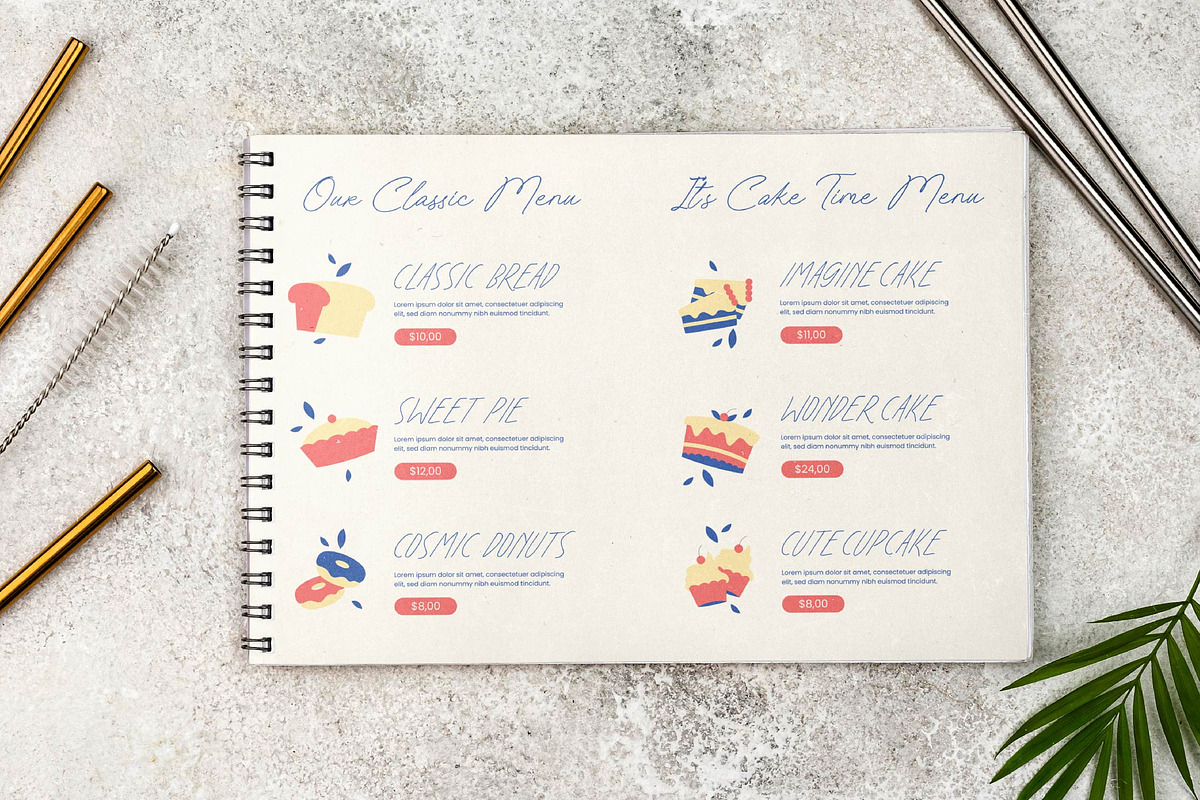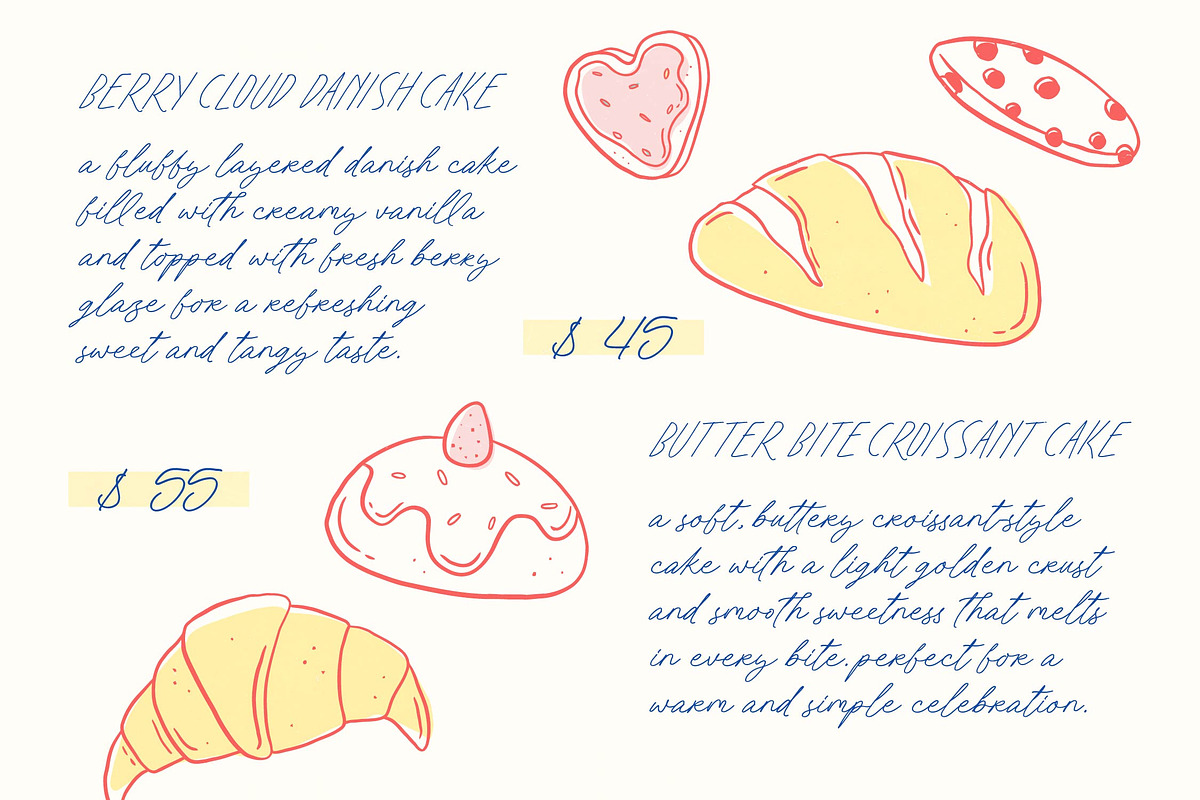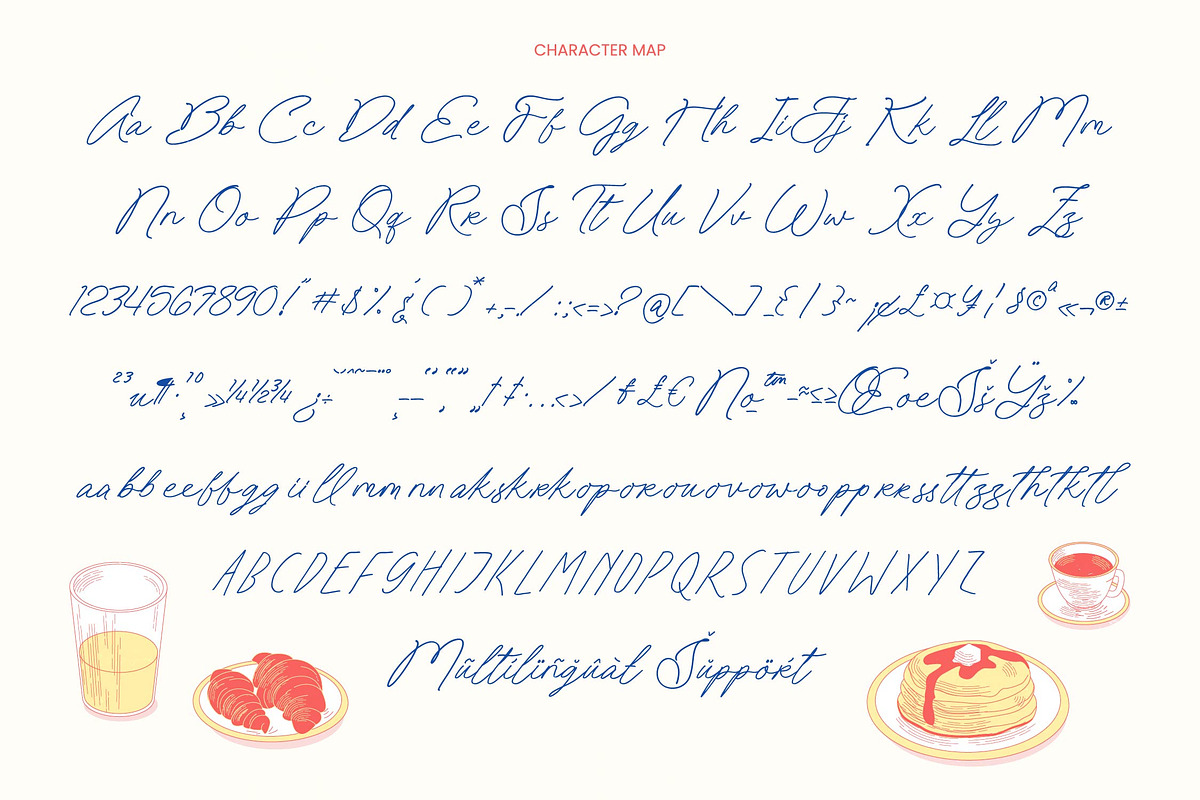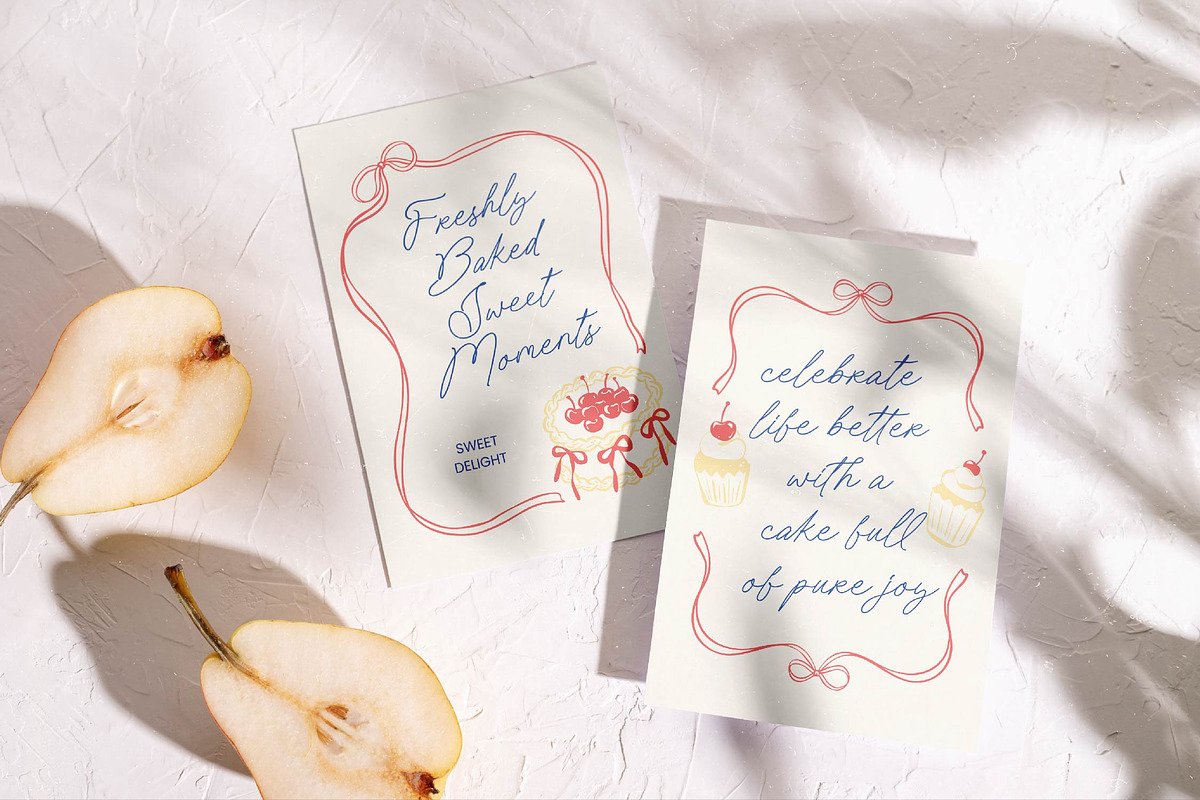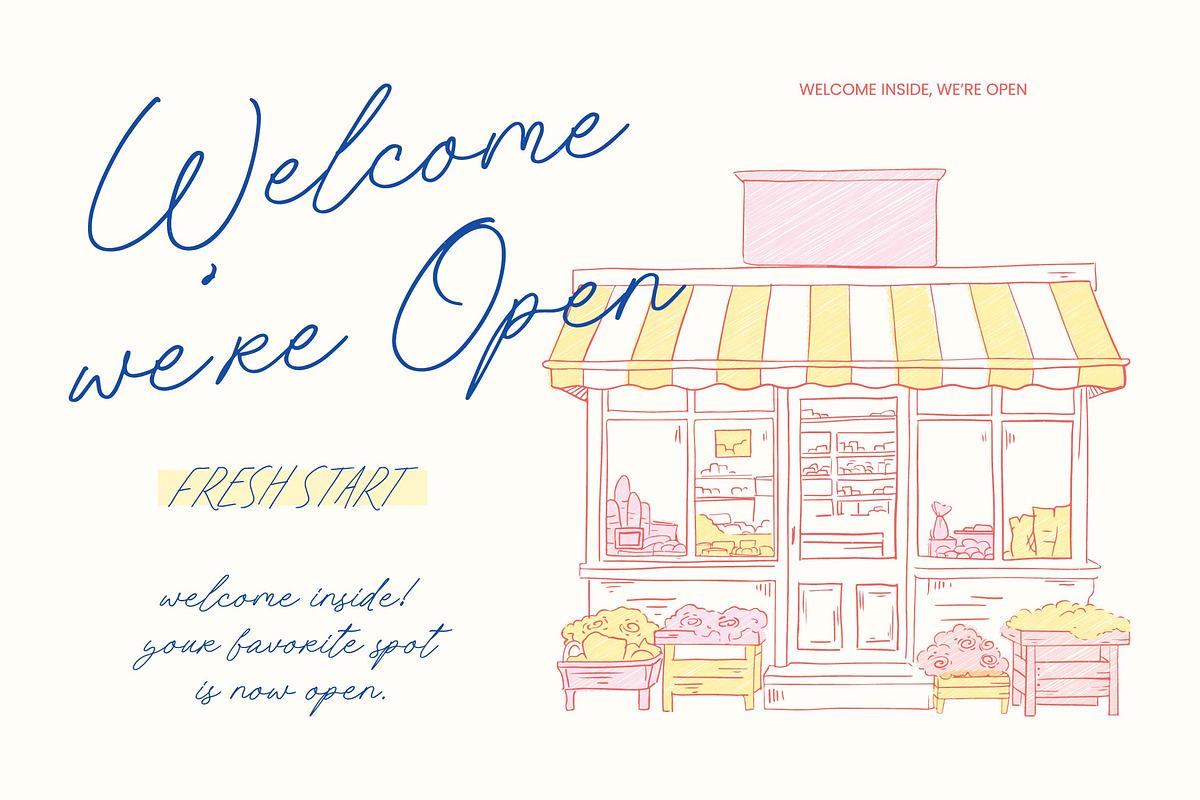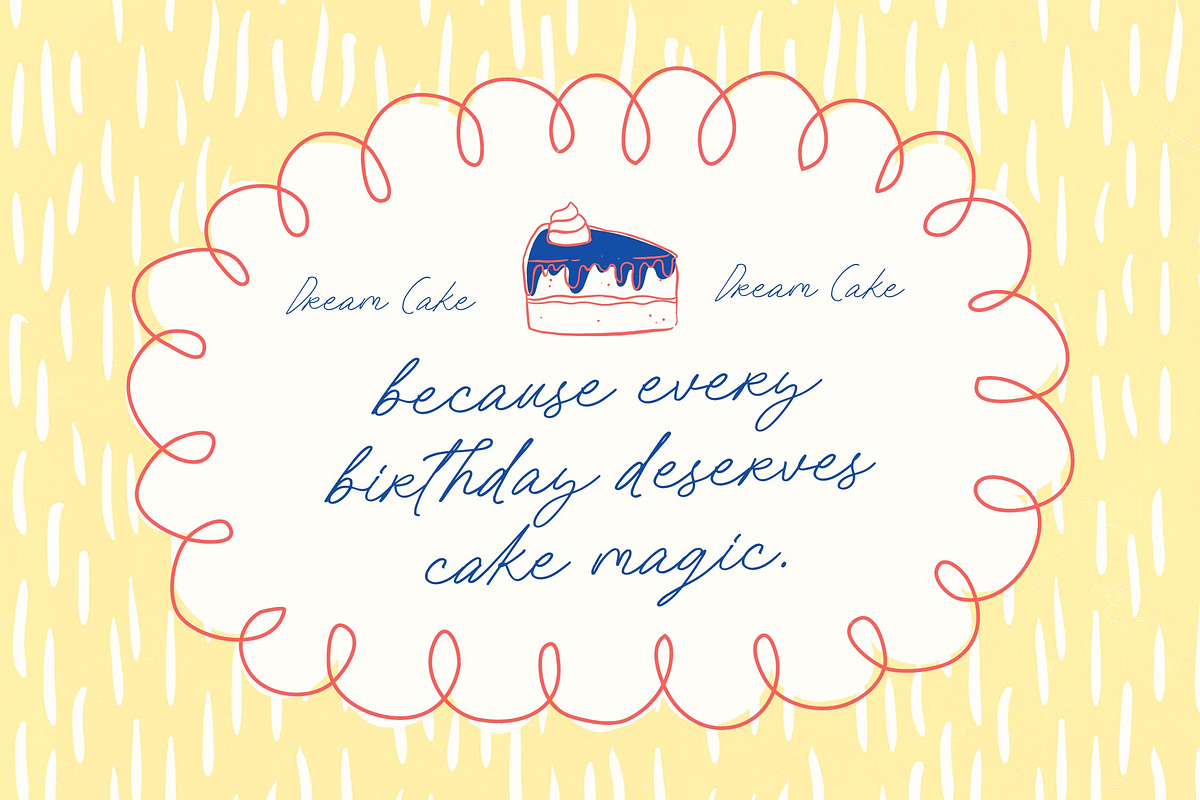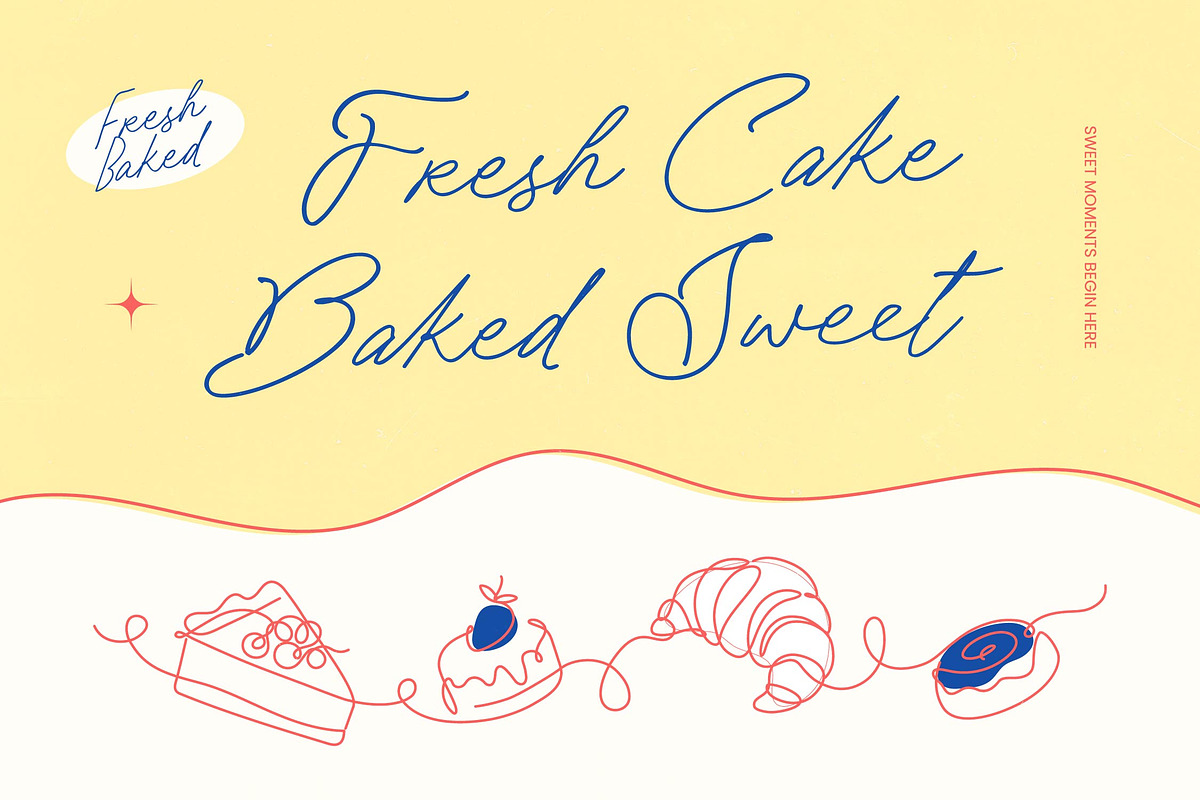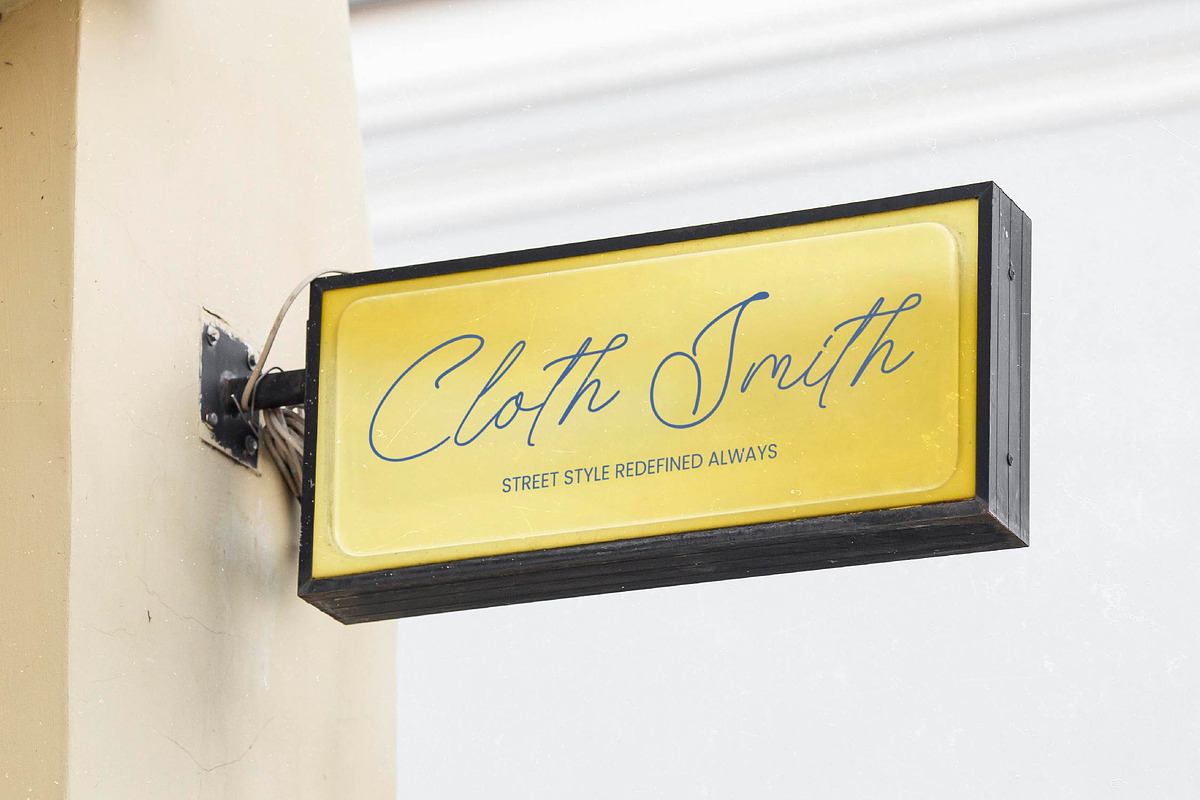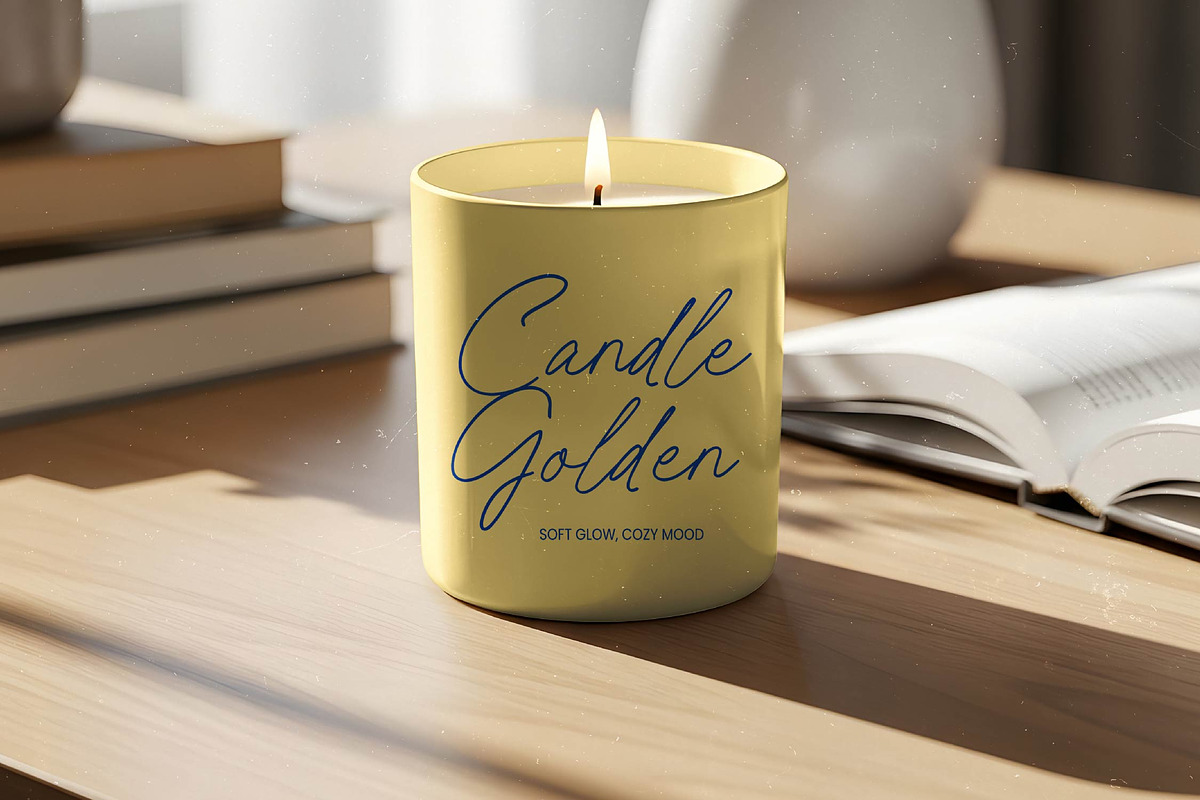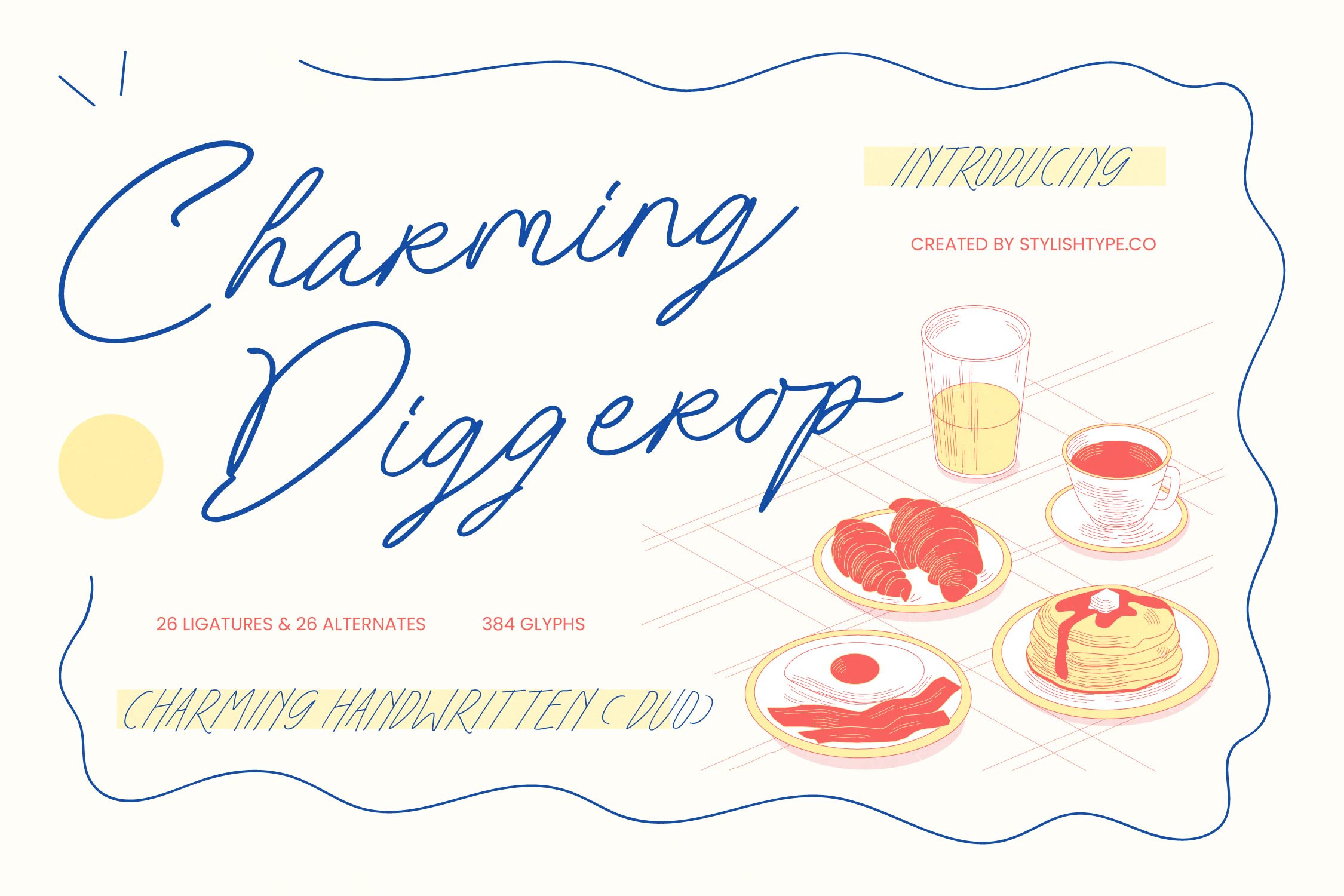
Charming Diggerop Handwritten Font
Charming Diggerop - Handwritten Font , Elevate your creative vision with a typeface that embodies effortless elegance. Charming Diggerop - Handwritten Font is a masterclass in modern script design, offering a fluid and organic aesthetic that mimics authentic penmanship. Its graceful strokes and rhythmic flow provide a personal touch that is both sophisticated and approachable, making it an essential tool for designers seeking to infuse their work with a unique, human-centric character.
Experience unparalleled creative flexibility through a rich library of specialized glyphs. This dynamic typeface includes 26 ligatures and 26 alternates, totaling 384 glyphs that ensure every word feels custom-made. By utilizing Charming Diggerop - Handwritten Font, you gain access to a versatile design asset that balances readability with artistic flair. Whether you are crafting a high-end logo or an intimate wedding invitation, its consistent weight and balanced spacing guarantee professional results.
Reach a global audience without compromising on style or brand consistency. With its extensive multilingual support, Charming Diggerop - Handwritten Font adapts seamlessly across global markets, making it incredibly versatile for international projects. This comprehensive language coverage allows businesses to maintain a cohesive visual identity across diverse regions, ensuring that the Charming Diggerop - Handwritten Font remains a reliable choice for worldwide branding campaigns and localized marketing materials.
Transform your projects into premium experiences with the perfect typographic companion. The Charming Diggerop - Handwritten Font is perfectly suited for luxury branding, chic packaging, and editorial design. It excels in social media graphics, lifestyle product labels, and high-end stationery where a bespoke feel is required. By choosing Charming Diggerop - Handwritten Font, you are investing in a timeless aesthetic that captures attention and elevates the perceived value of any commercial project.